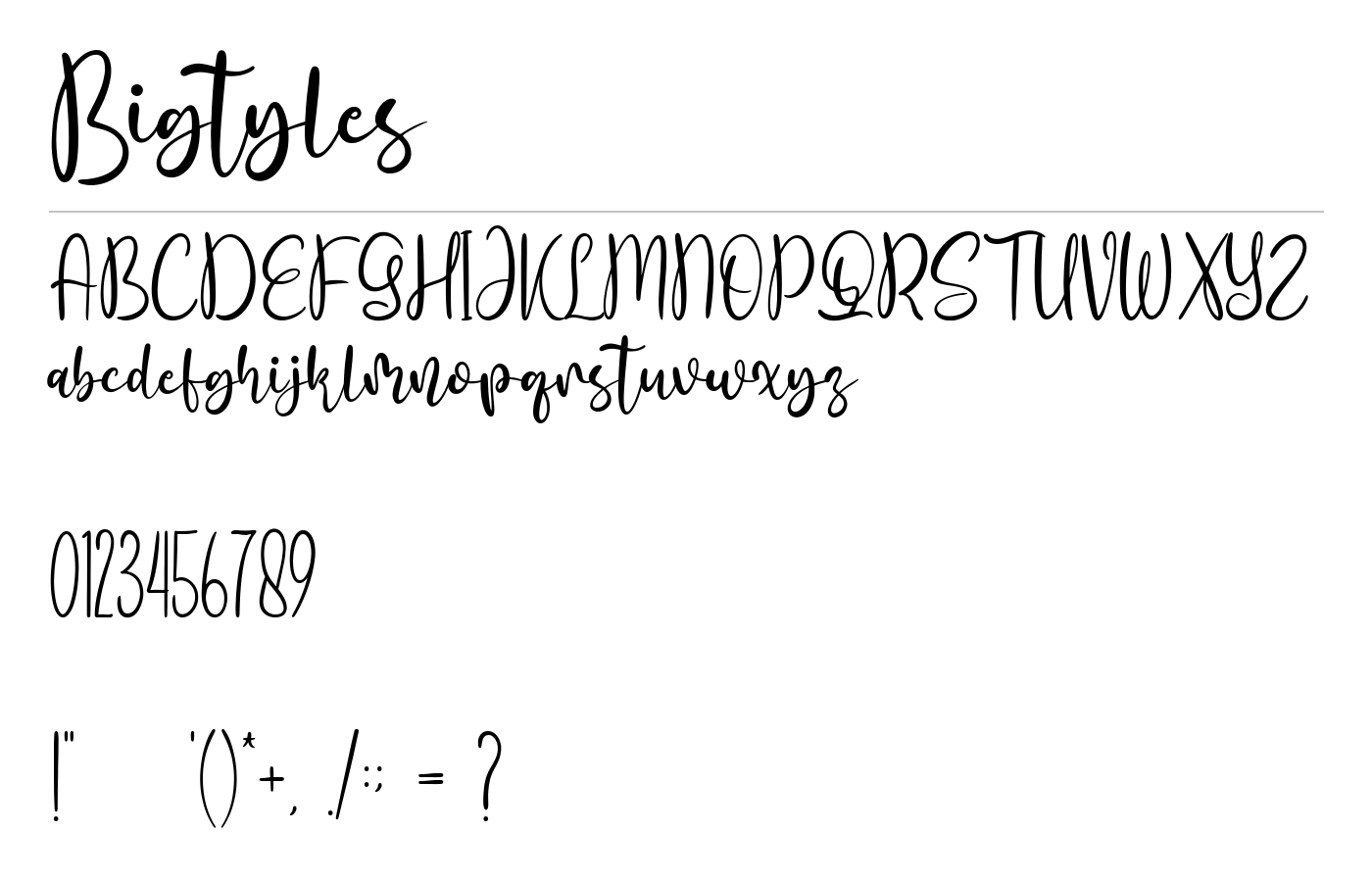
Bigtyles is a playful and casual script font with thin, flowing strokes that create an inviting, hand-drawn feel. Its tall uppercase letters feature whimsical curves and loops, while the lowercase characters offer a smooth, connected style perfect for friendly and informal designs. This font works well for invitations, branding, and creative projects that want to convey warmth and personality.
Bigtyles Font
About Bigtyles Font
| Font family | Bigtyles Font |
| Release date | 2022-06-08 |
| Designer | Anggi Hermawan |